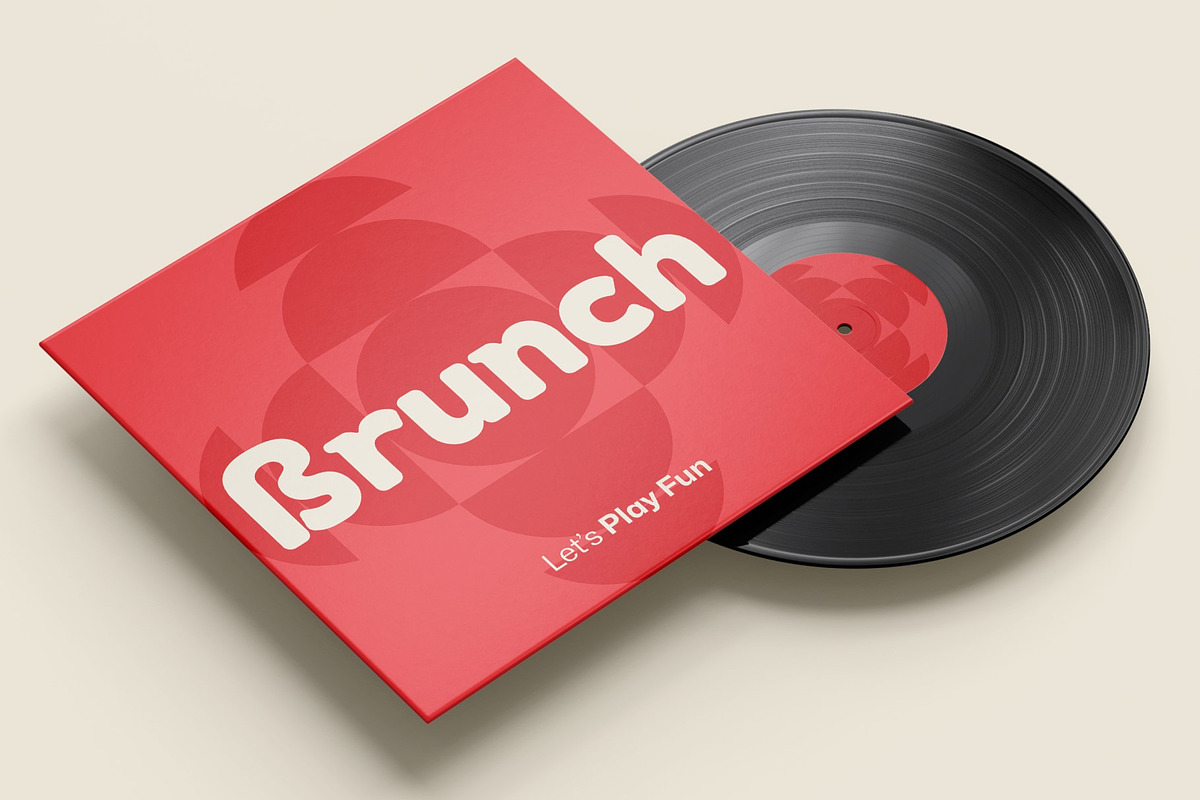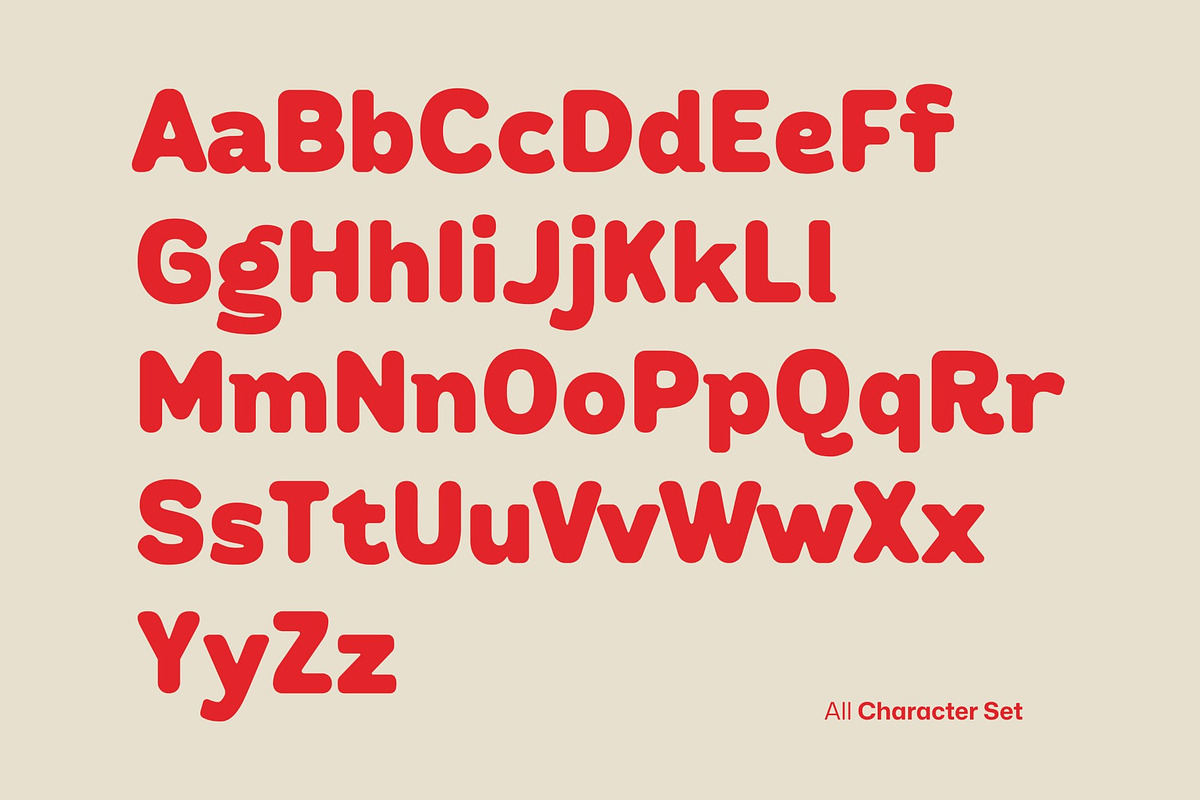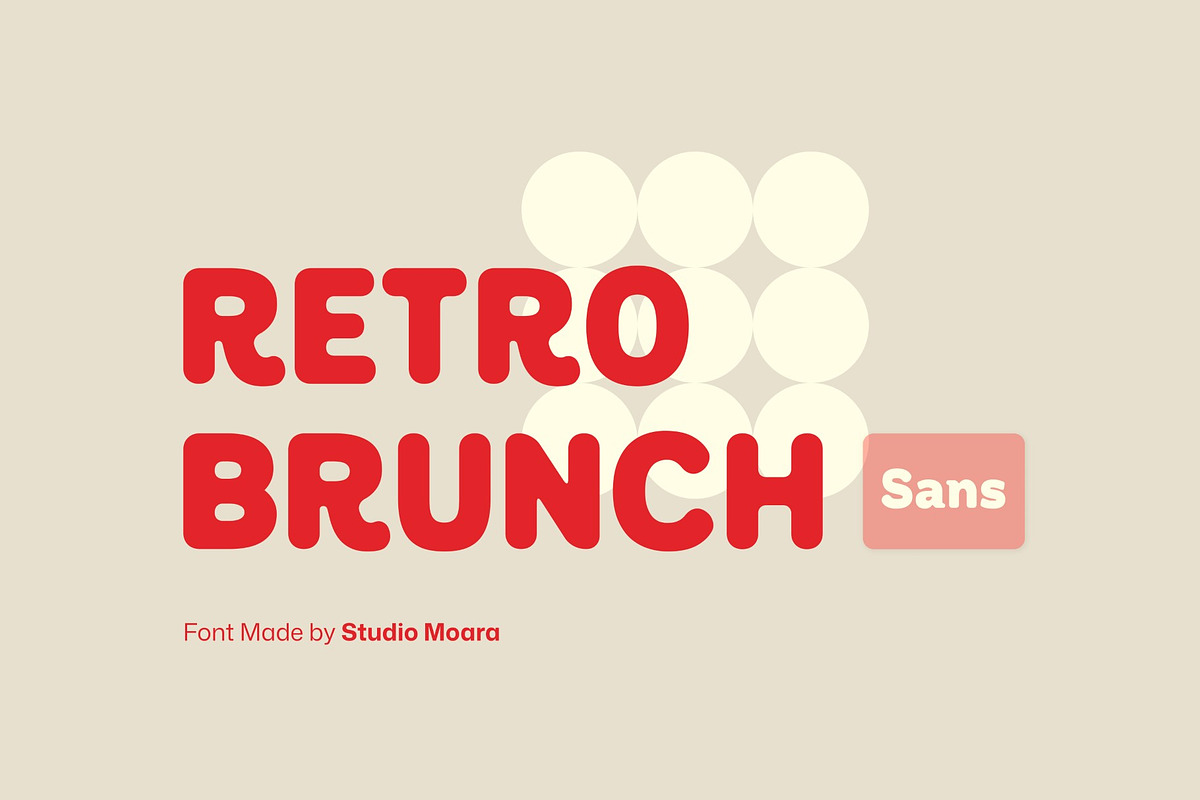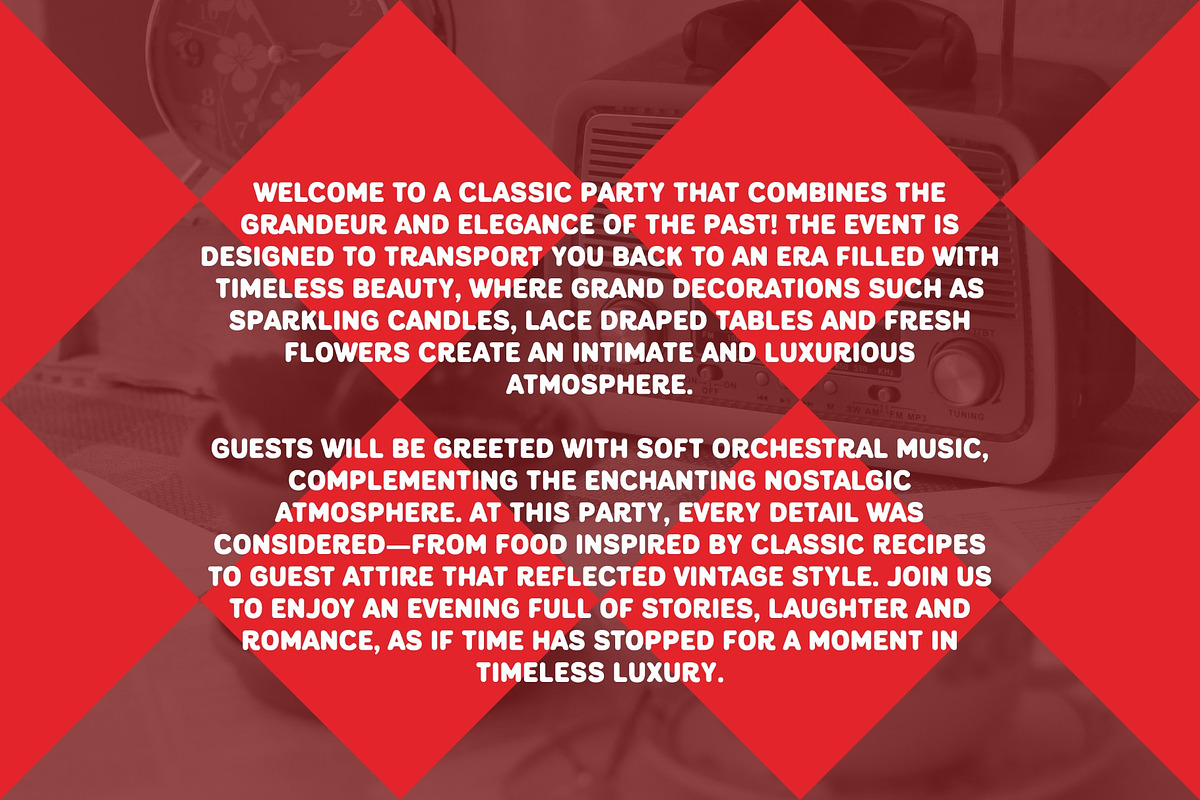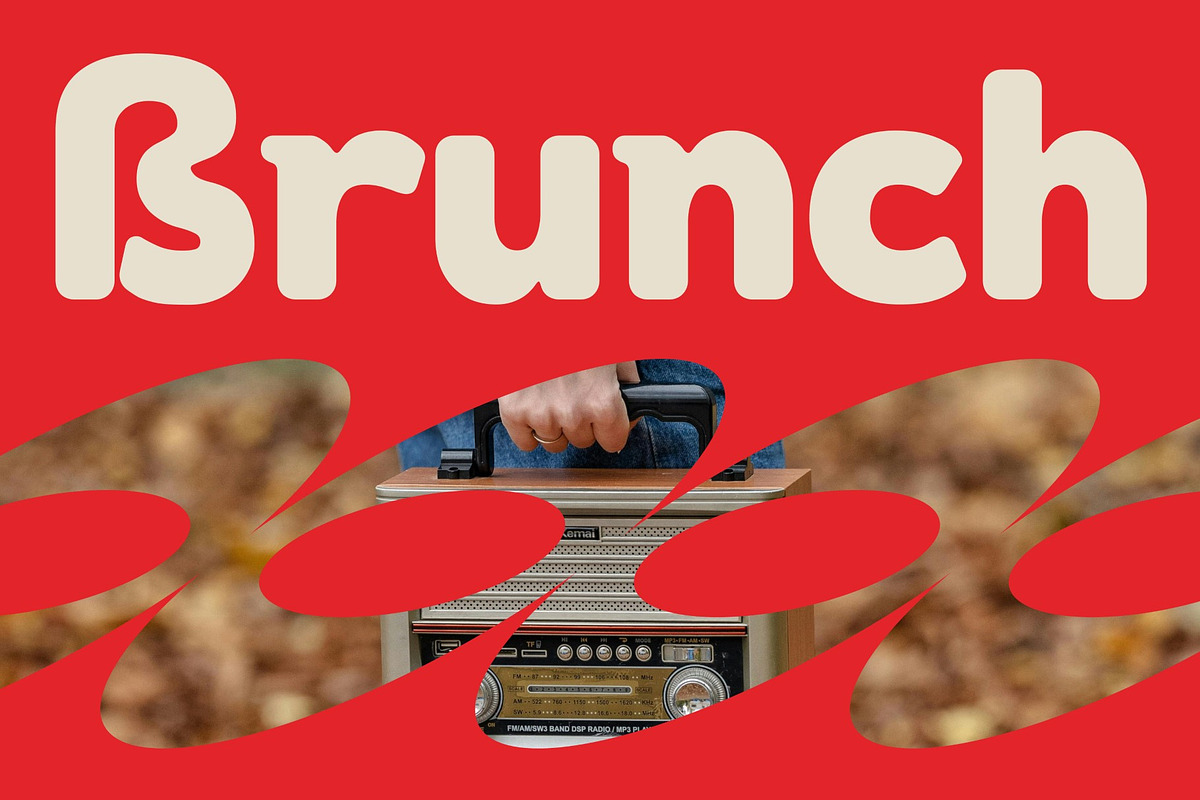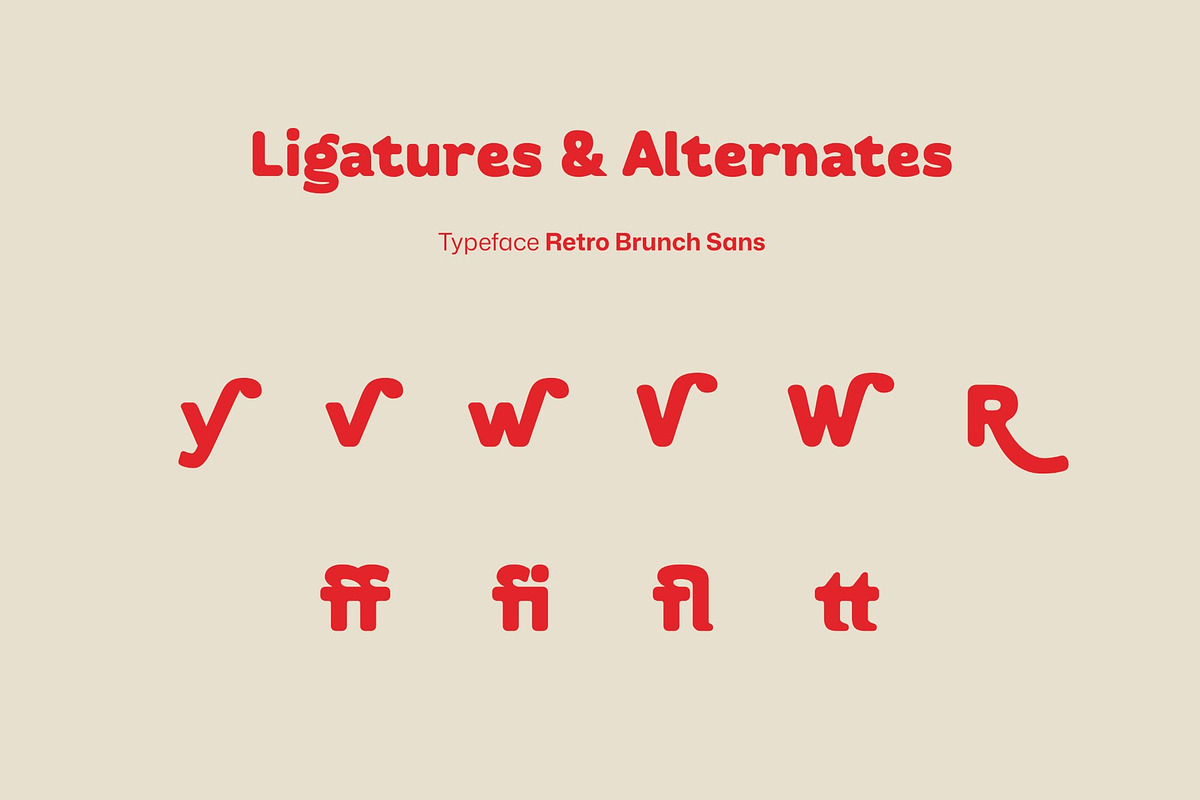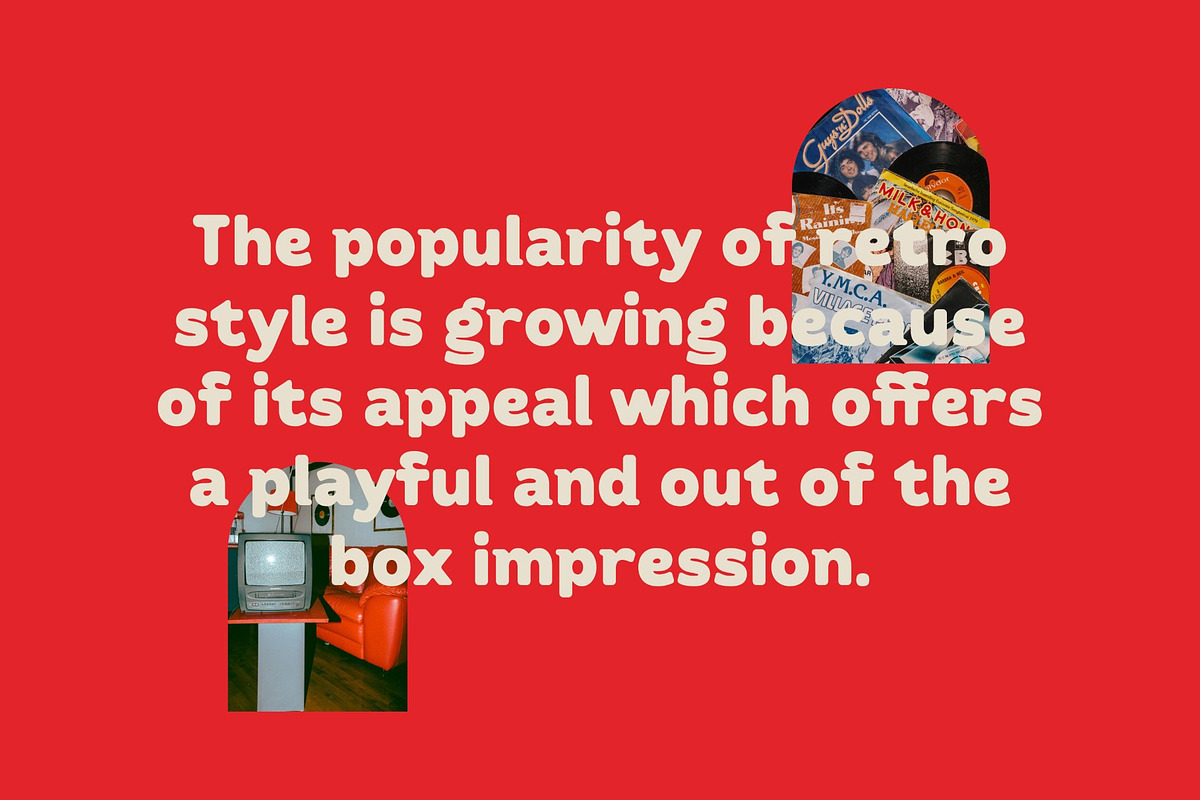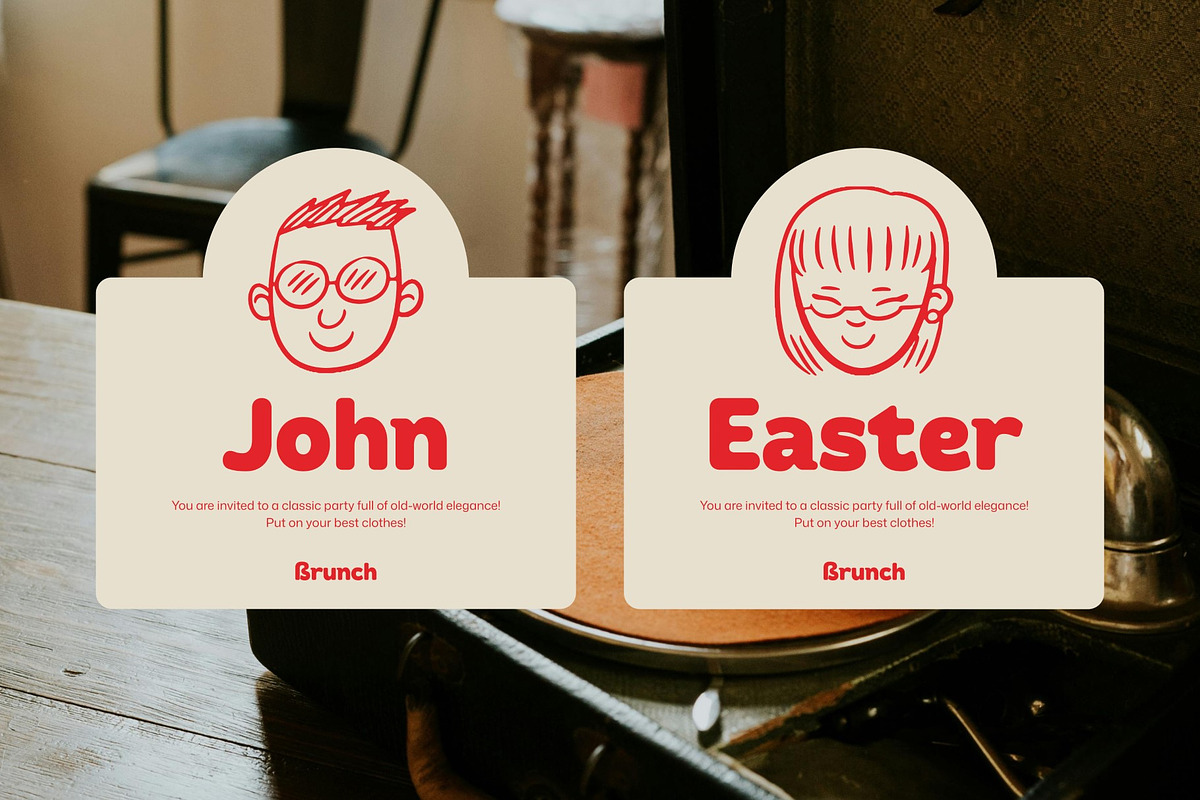
Retro Brunch Sans - Rounded Display
Transport your designs to a bygone era with Retro Brunch Sans, the epitome of retro rounded display fonts. This font effortlessly blends nostalgia and modernity, offering a perfect balance for your creative endeavors. The rounded characters exude a friendly and approachable vibe, making it an excellent choice for logos, headlines, and branding projects. Elevate your design game with Retro Brunch Sans, where vintage charm meets contemporary flair, resulting in a font that's as timeless as it is trendy.